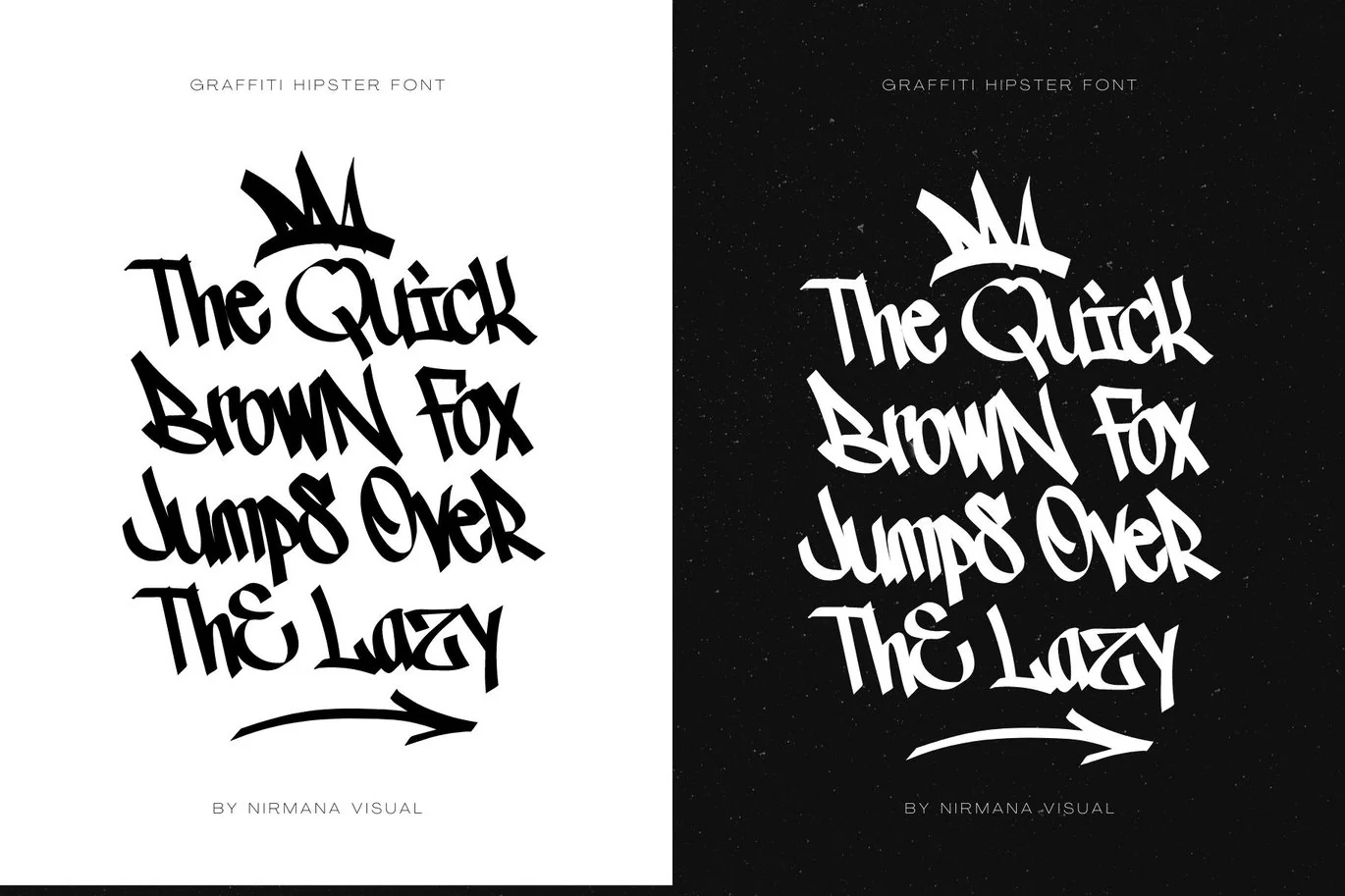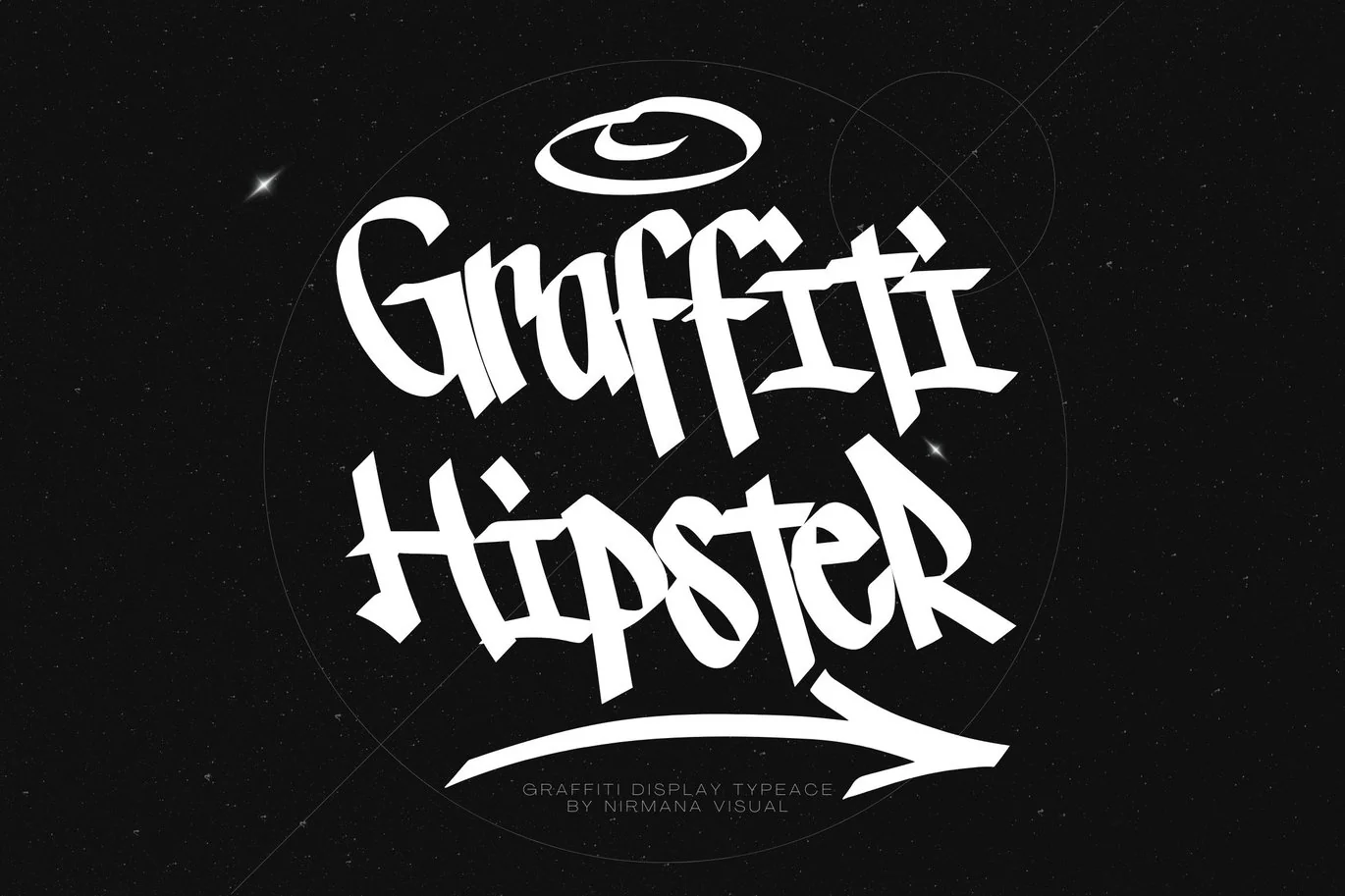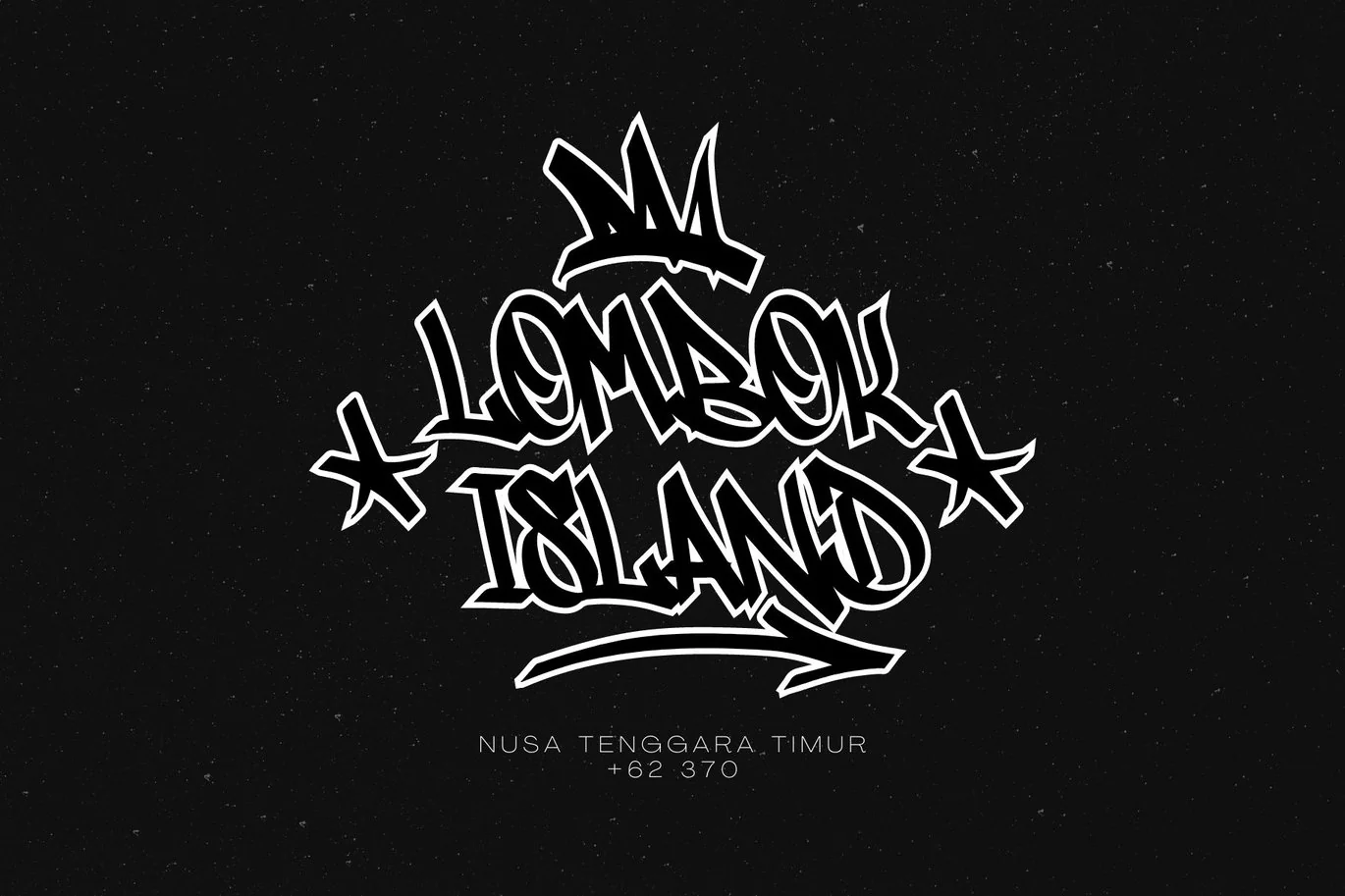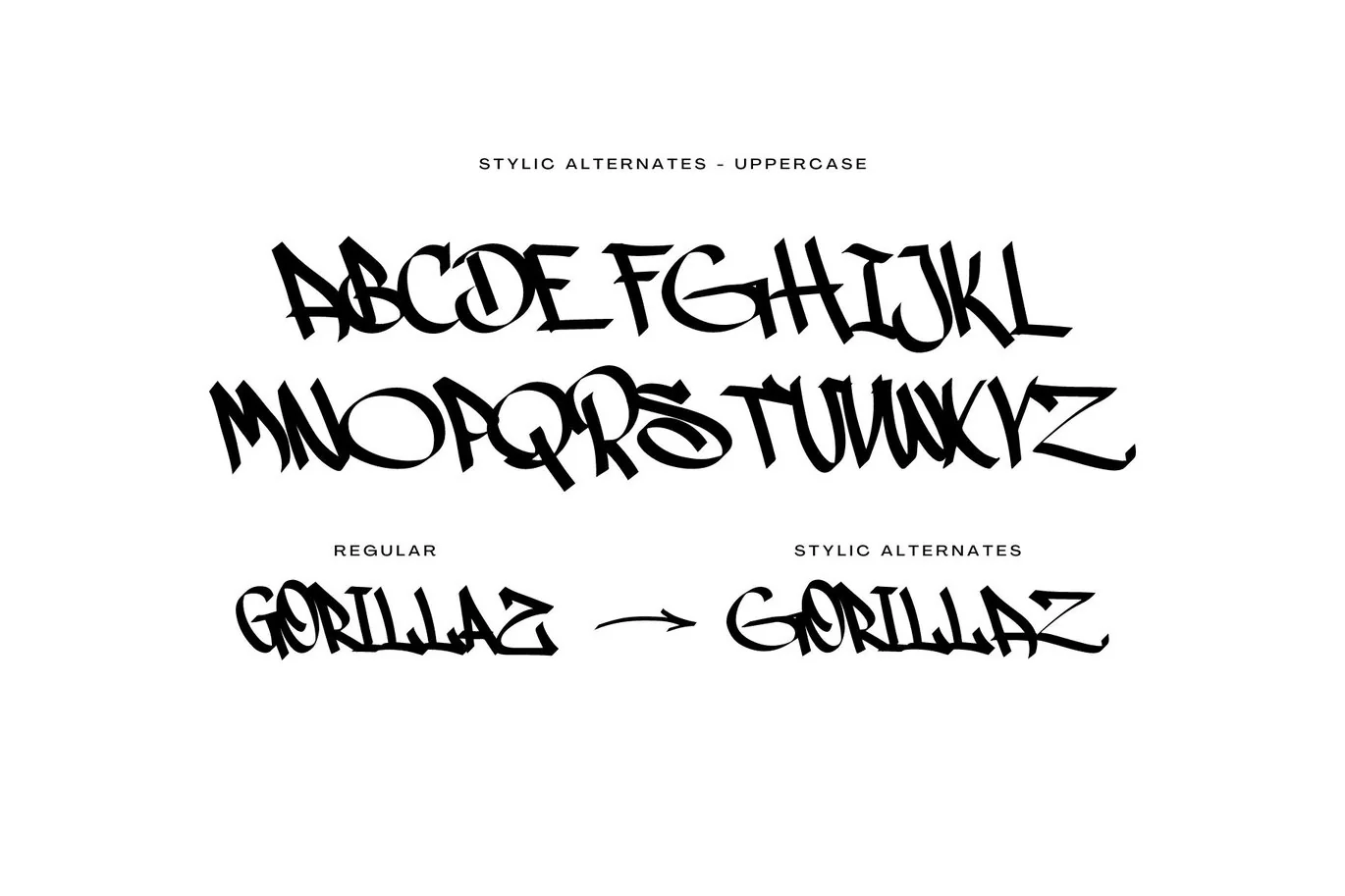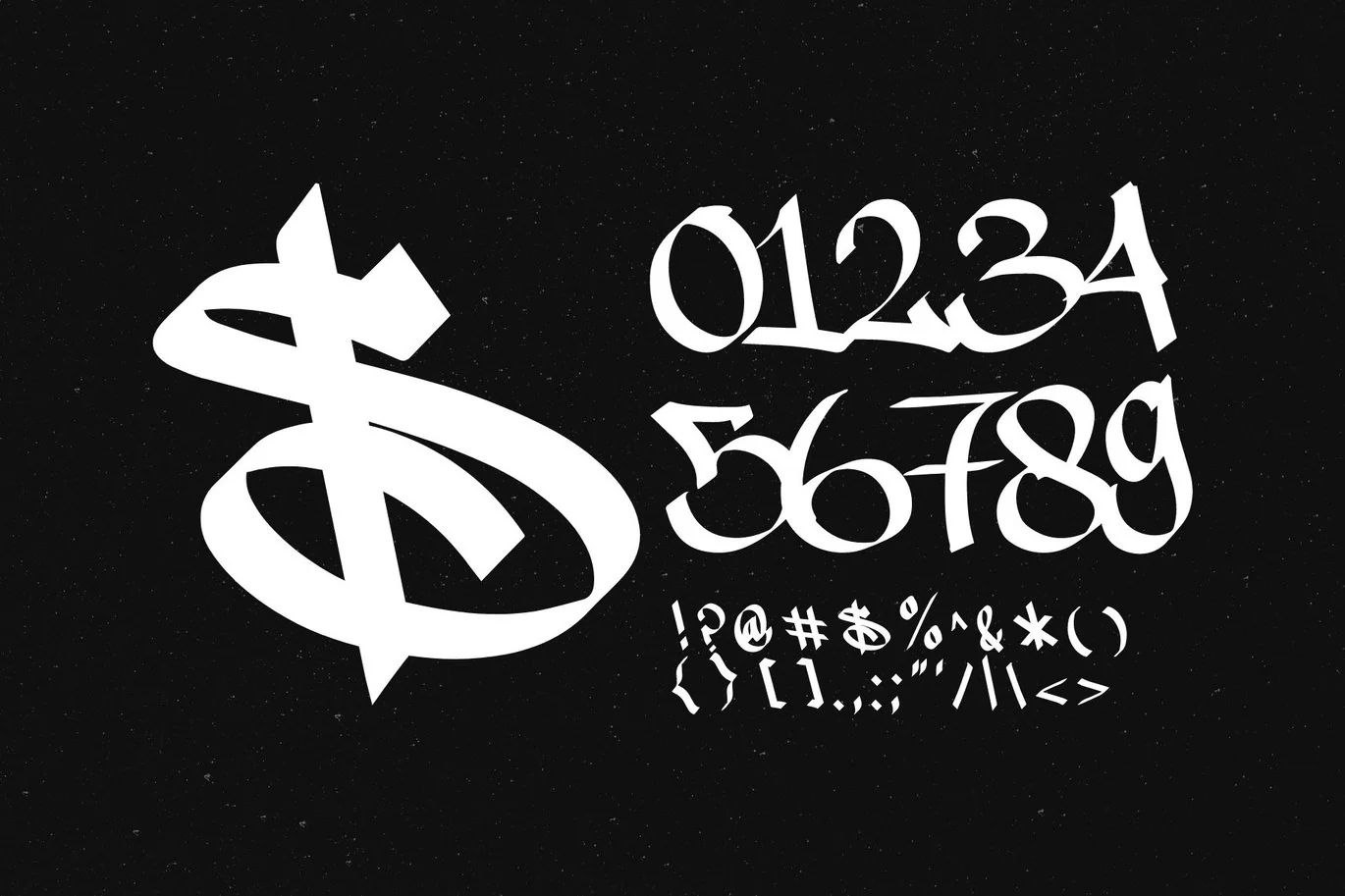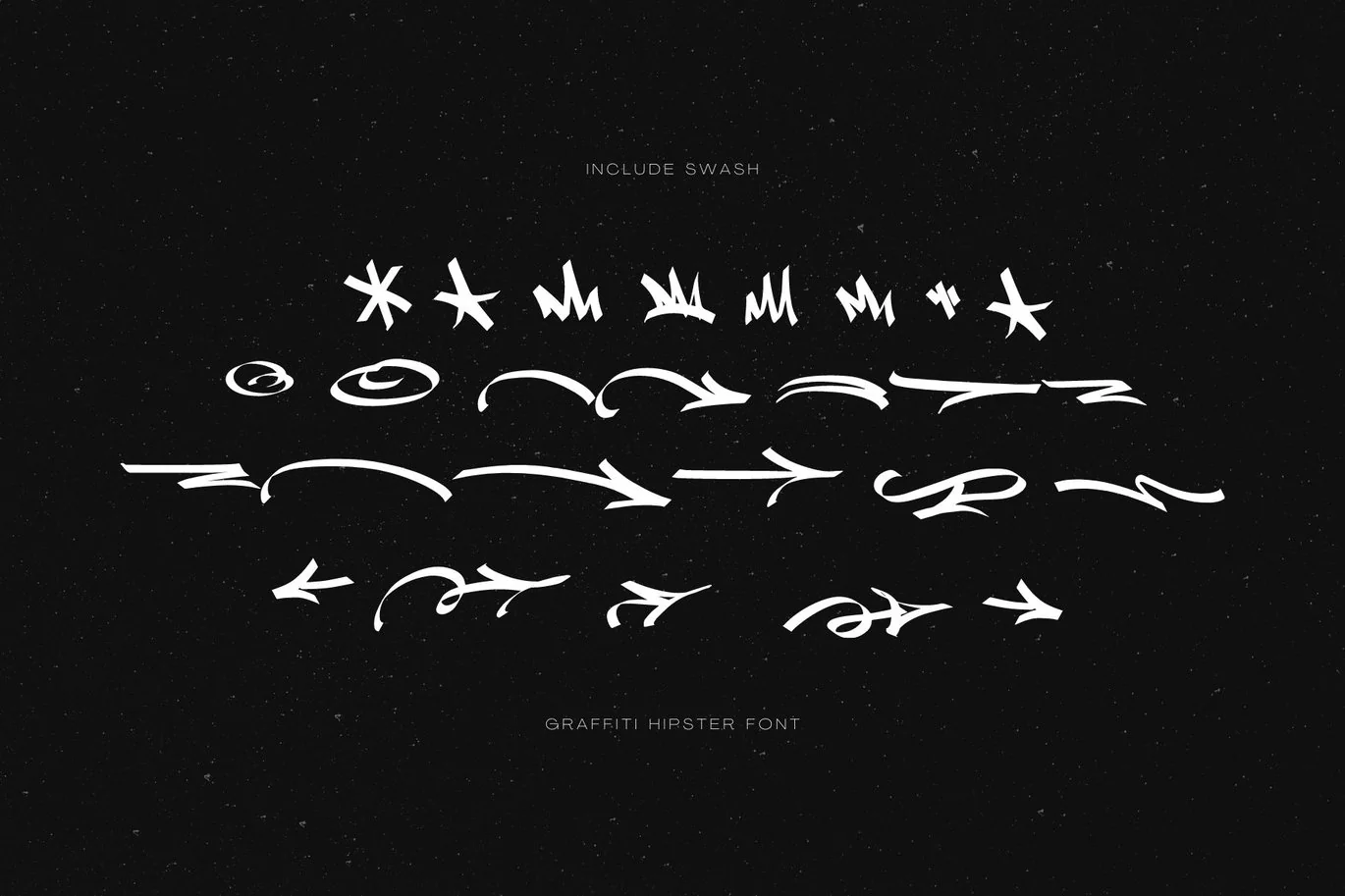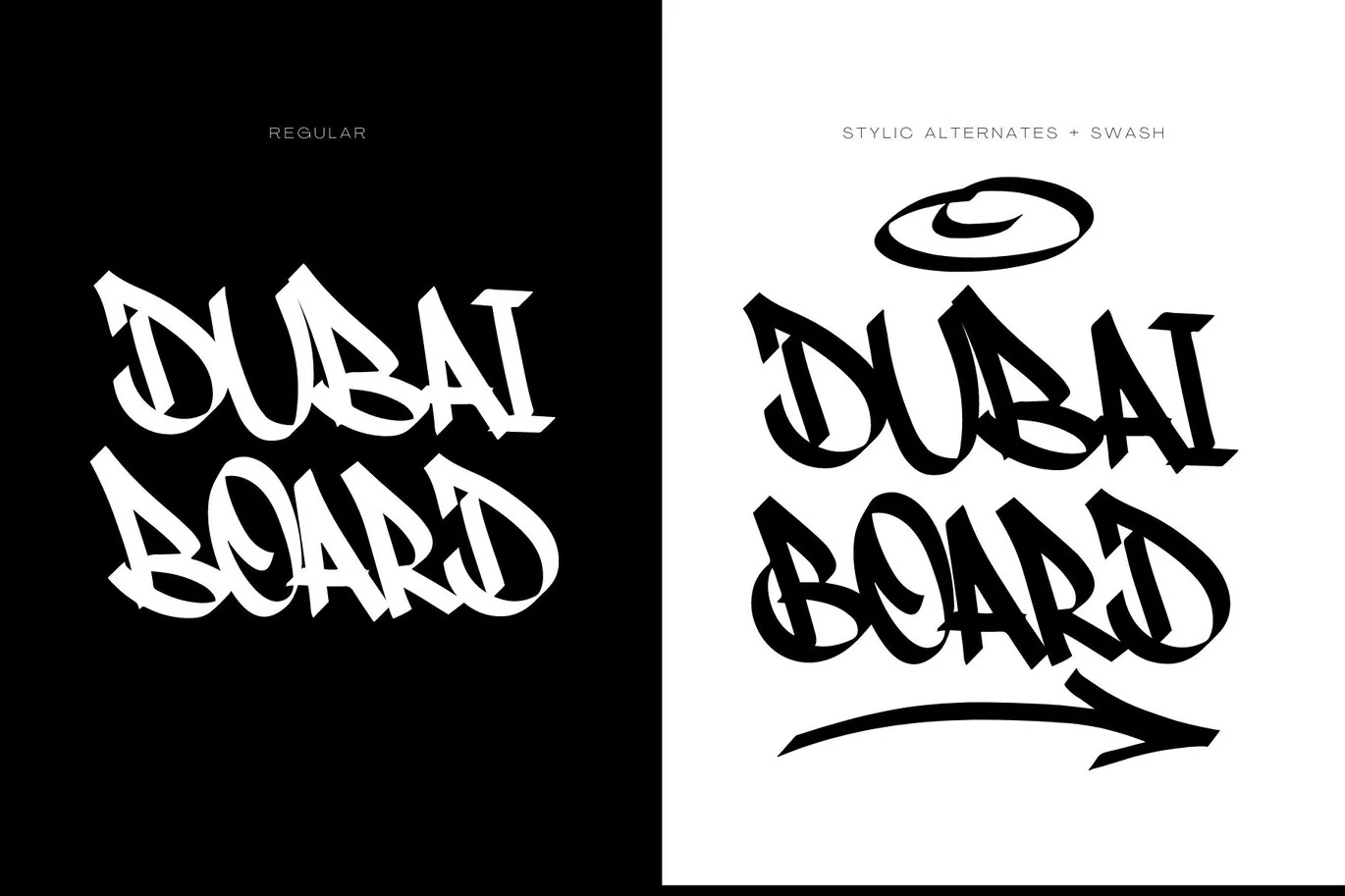
Graffiti Hipster – Logo Font
Introducing Graffiti Hipster
Inspired by Graffiti style Design, with 2 Style : Regular & Swash
Graffiti Hipster offers beautiful typographic harmony for a diversity of design projects, including logos & branding, social media posts, advertisements & product designs.